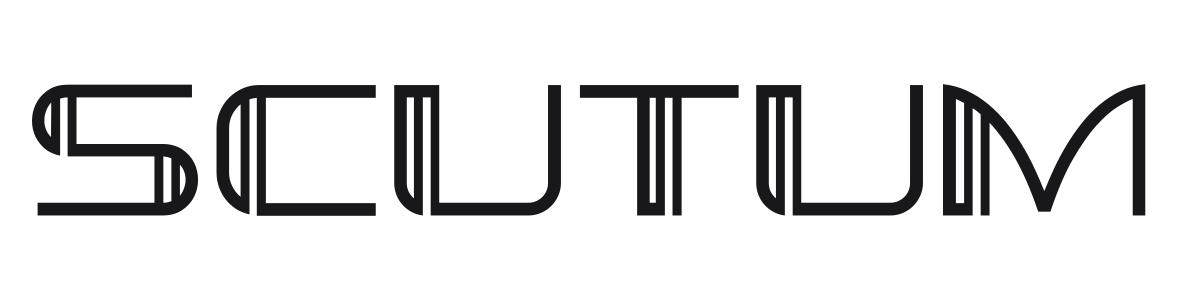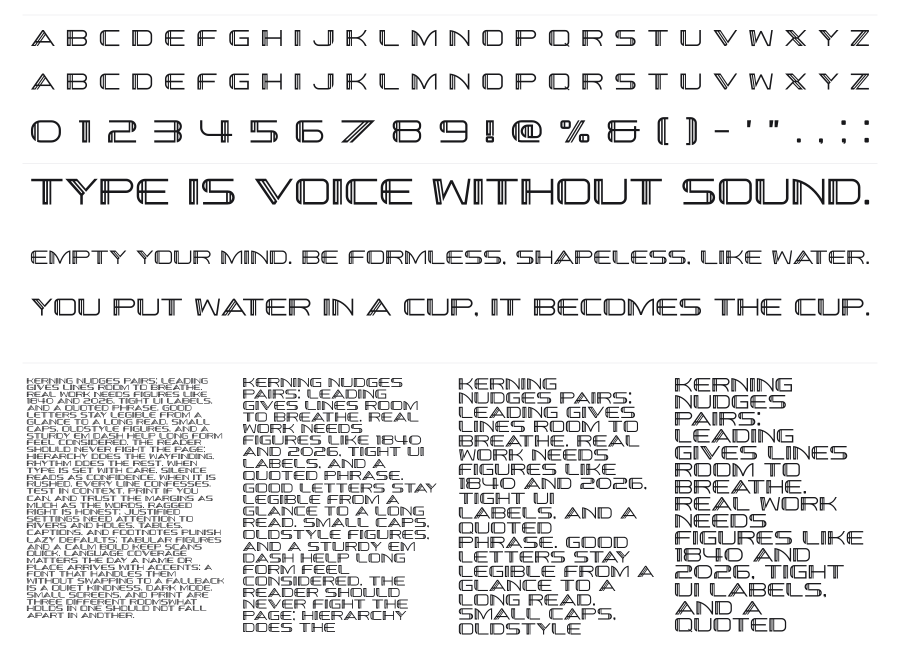
Scutum
Scutum is a geometric display font built around a triple inline stripe running through each character, evoking neon tubes, speed lines, and retro-futurist design. The wide uppercase construction draws from Art Deco grid thinking filtered through 1970s space-age aesthetics. Strong presence at large sizes, naturally at home on posters, album covers, and anything that needs a cinematic edge.